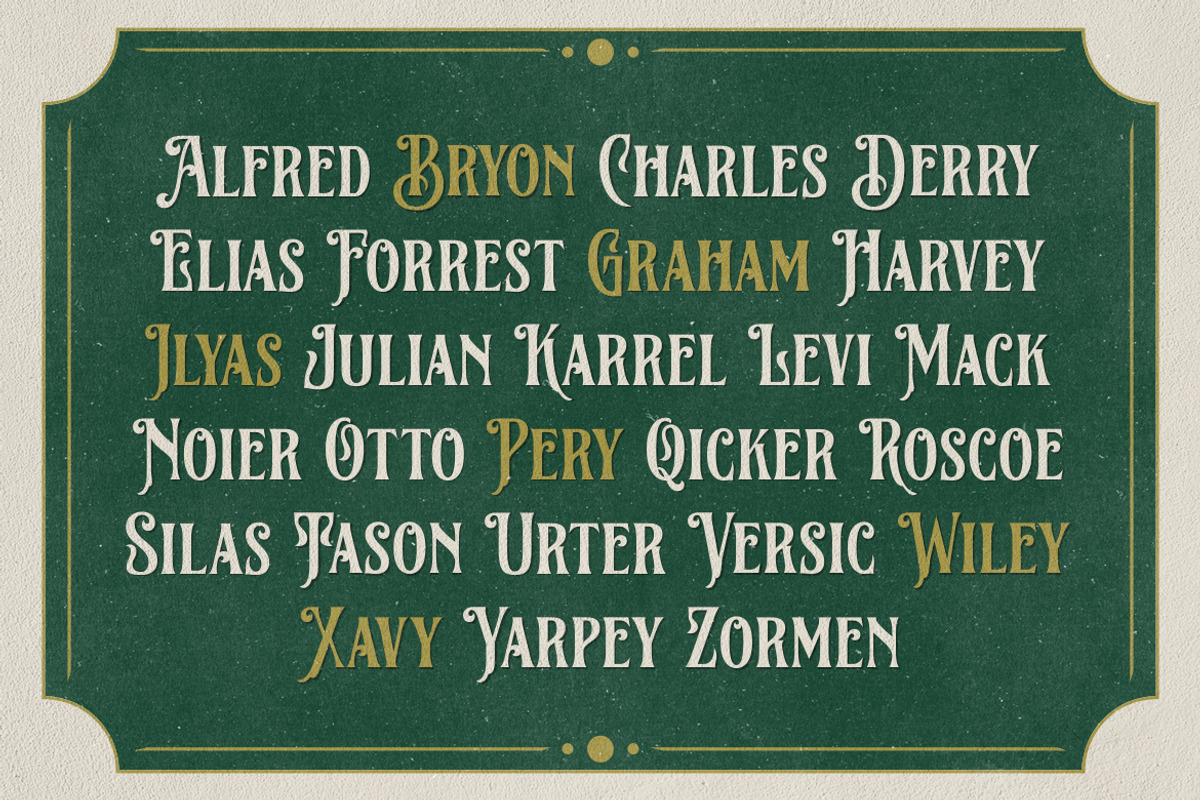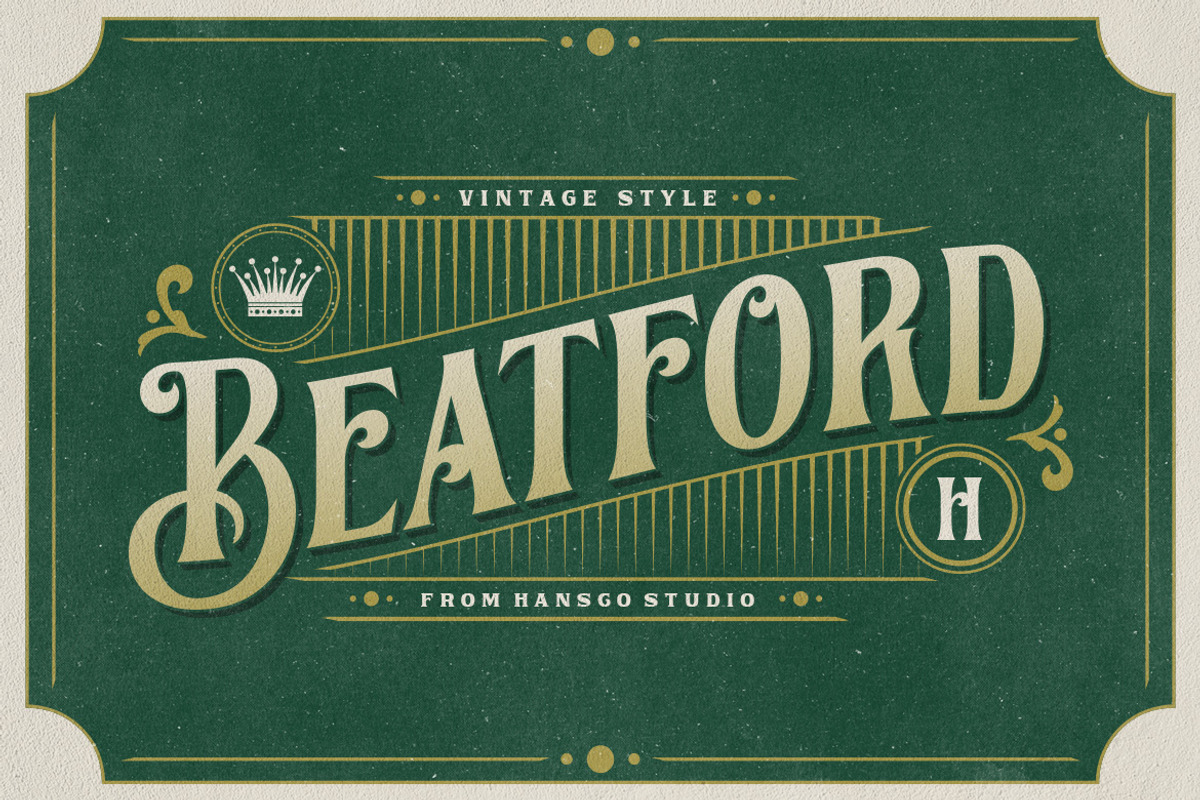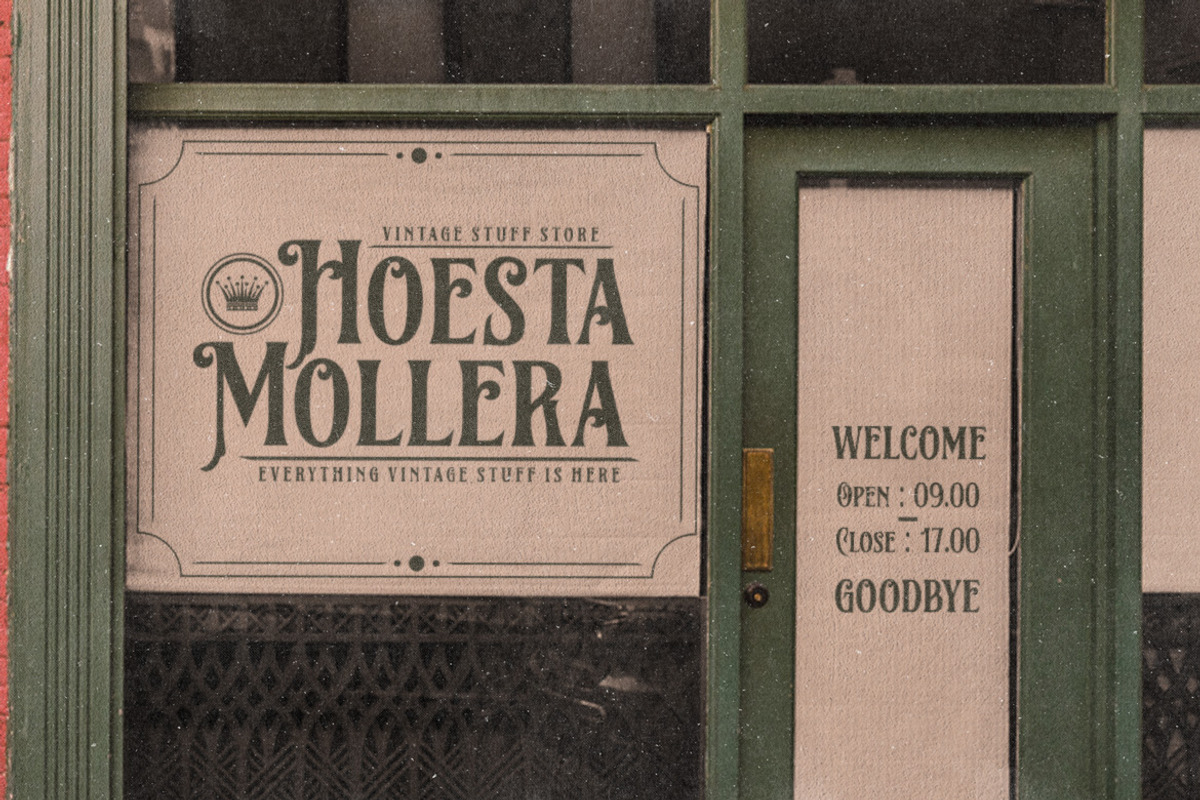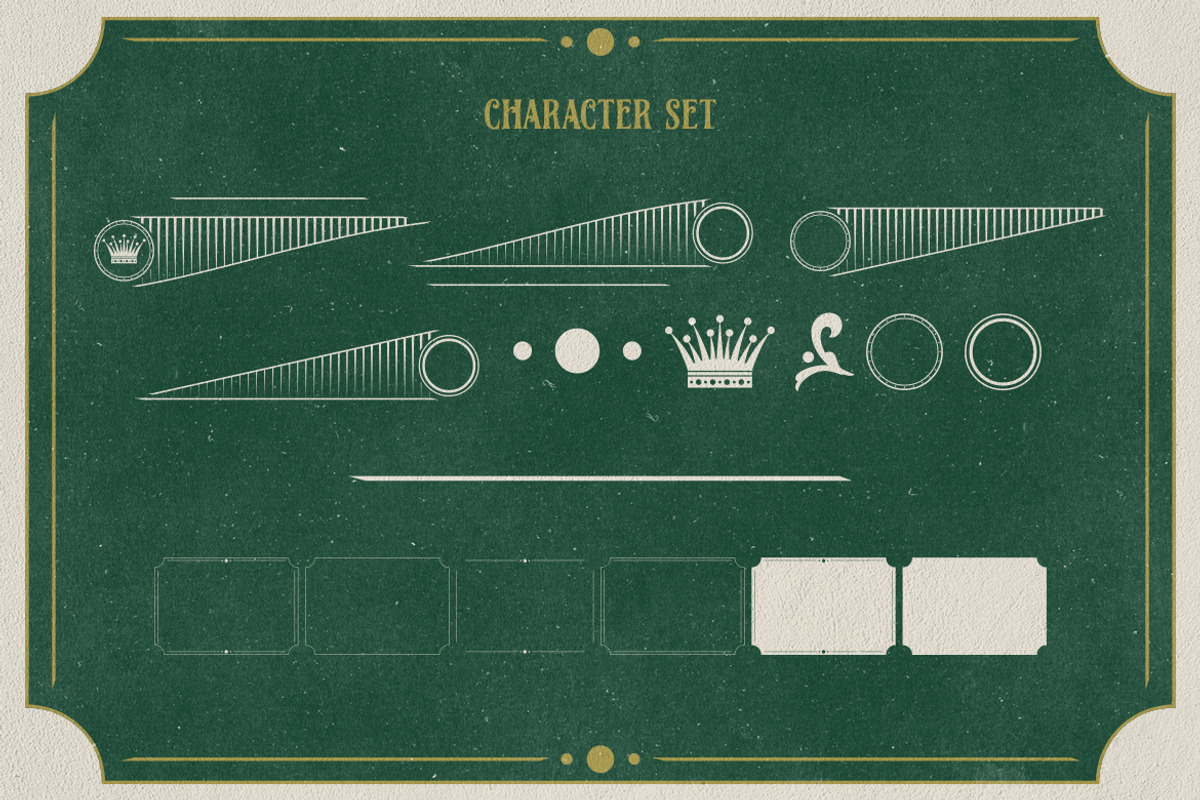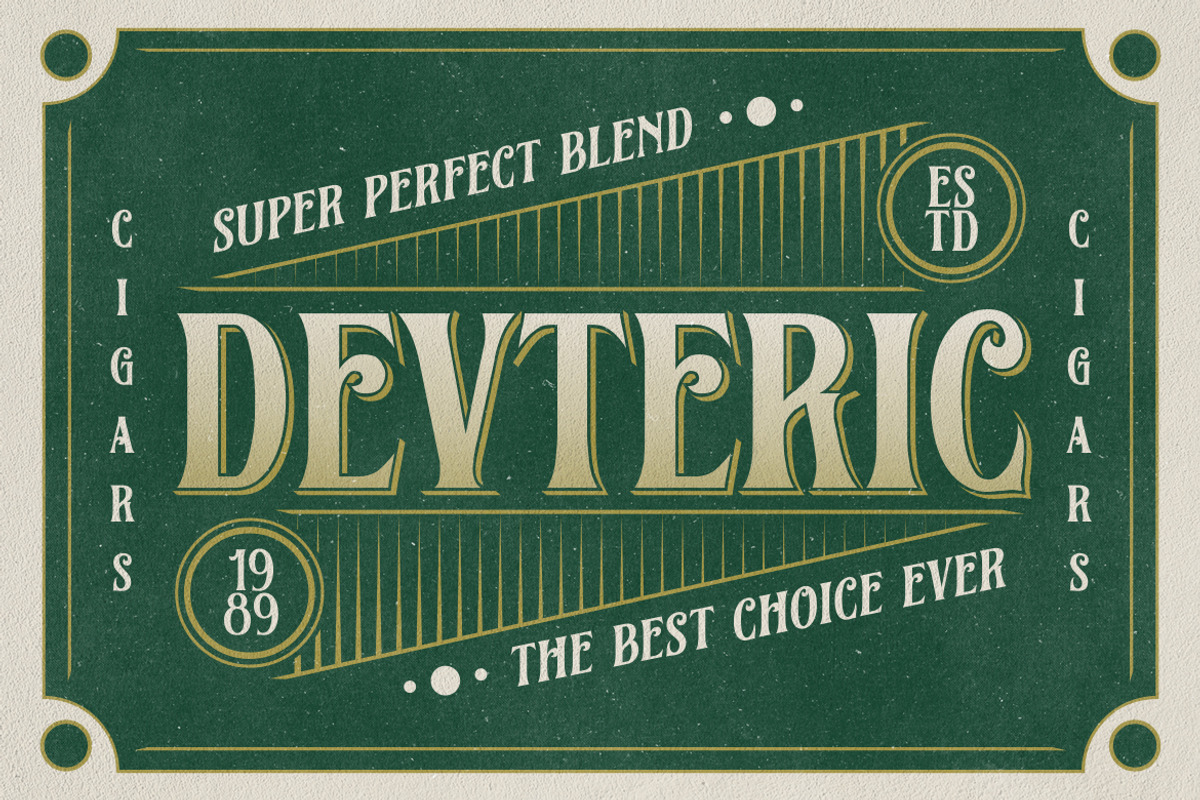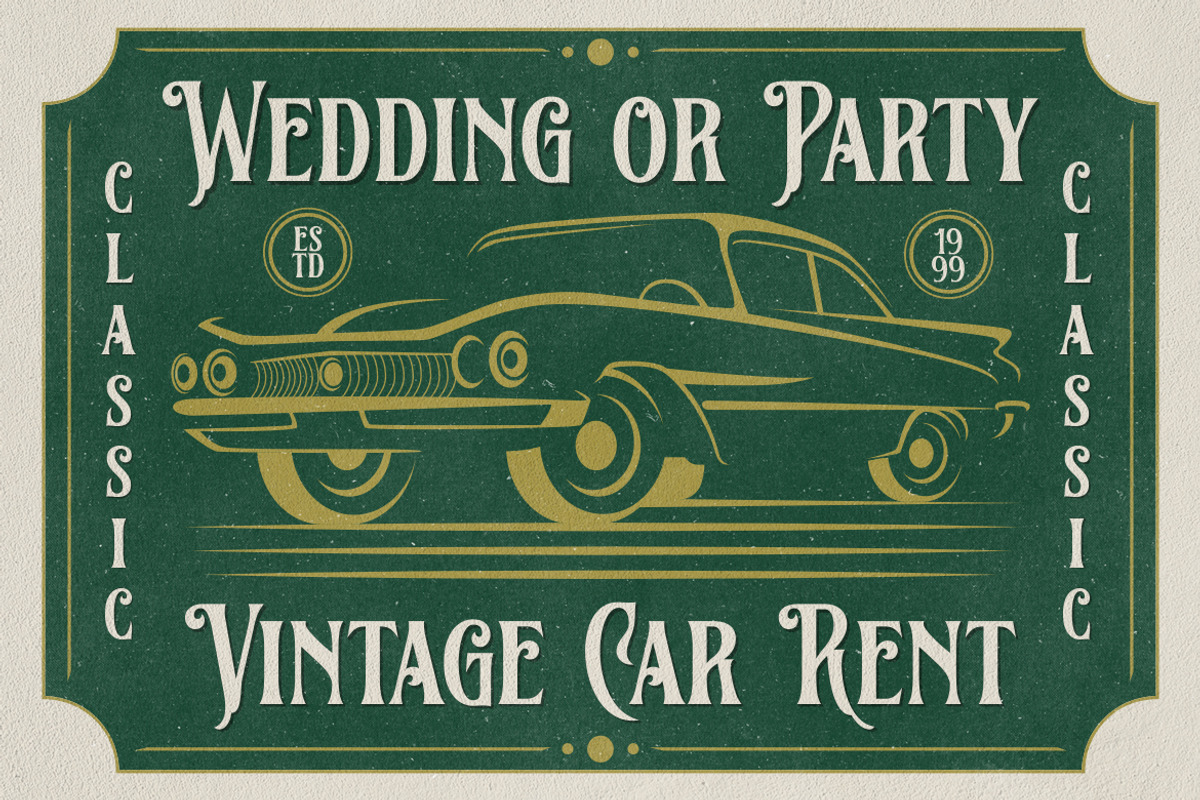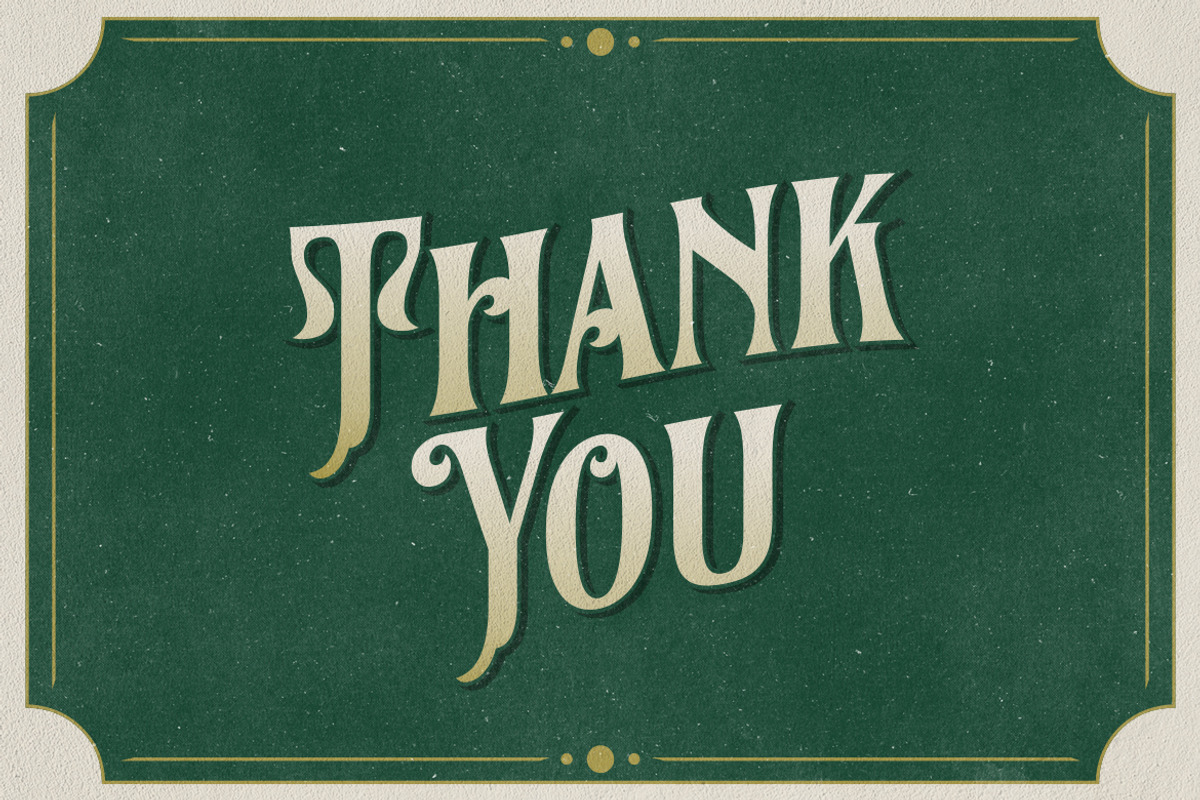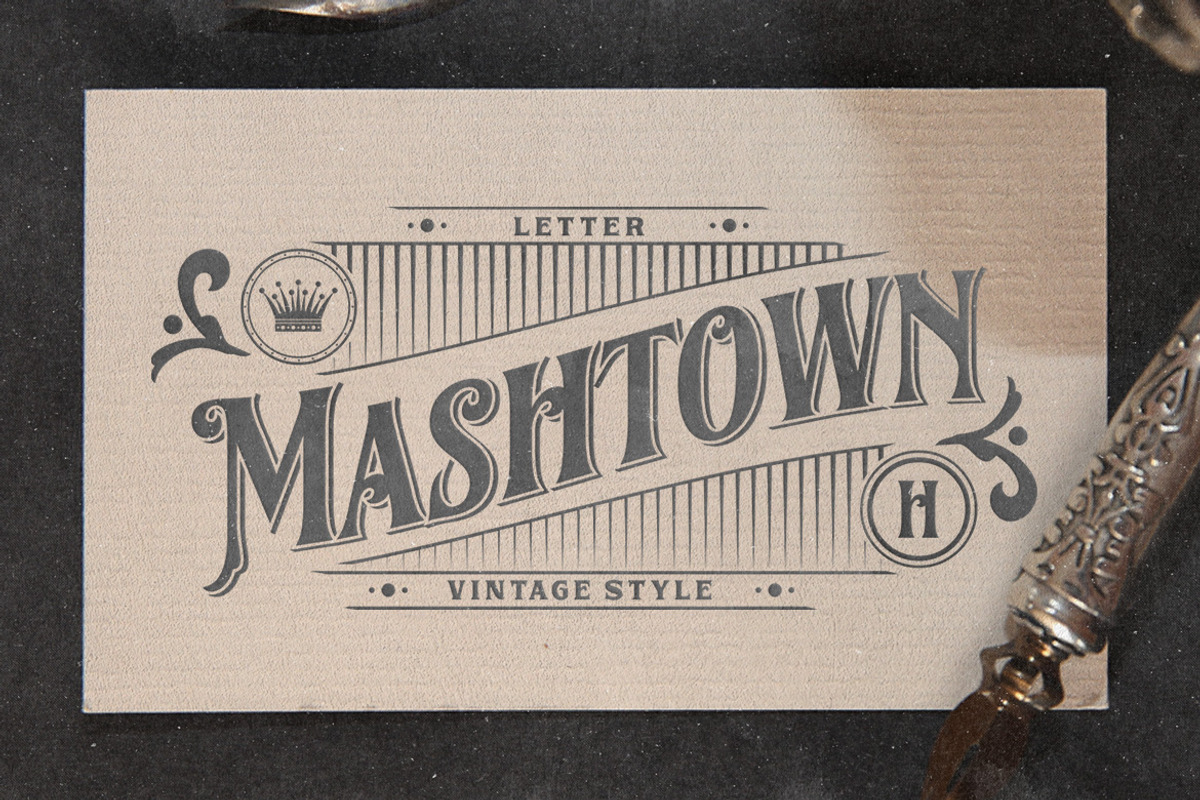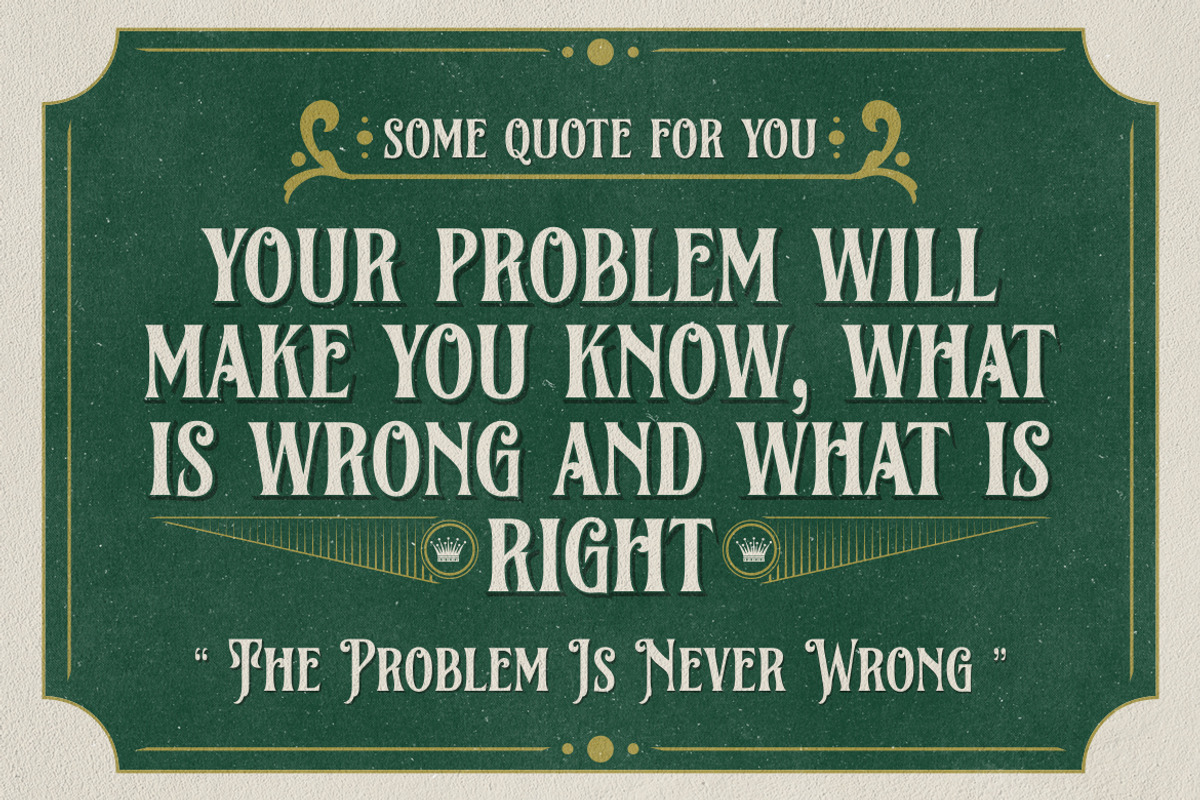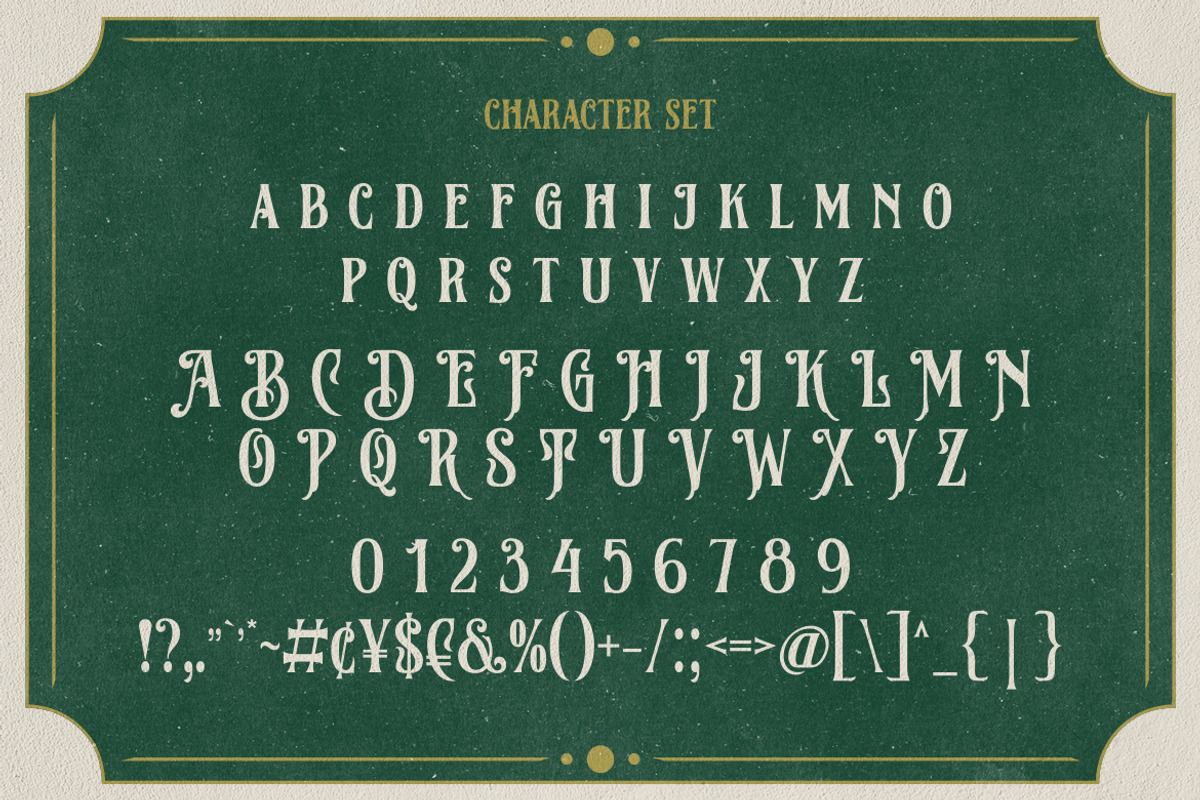
Beatford - Vintage Font
Beatford is a Vintage typeface font, it will add an old-rustic charm to any design project. This collection of font is perfect for everything your project with vintage, retro, wild or organic style. It was made with the intention of being used for product Logo like a Pomade, Coffee, Barber shop or packaging label. It’s great also for Branding, Logo designs, Lettering, Logotype, Craft, Posters and much more. Comes with a full Uppercase, Lowercase, Numbers, Punctuation and standard Multilingual support it’s going to be a very usable addition to your project. We recommend using Adobe Illustrator or Photoshop. If you using another software, you can use the Font Book on your Mac or the Character Map on your windows to see and access alternate character like swash. Use it for any crafting project that requires a classic appearance!
- Alternate Character Ornament